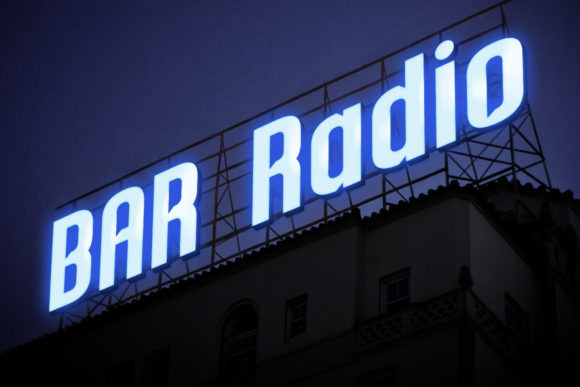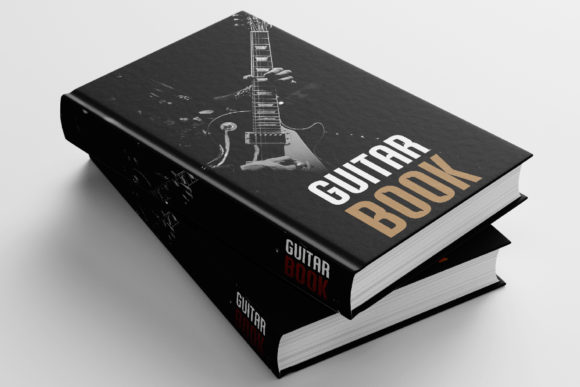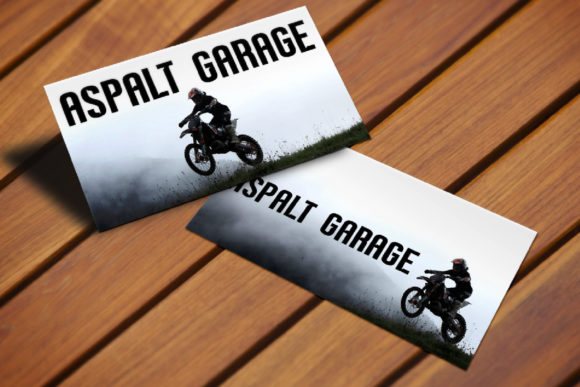
Introduction to Gothree Font
As a designer, you’ve been there – staring at a blank canvas, unsure of where to begin. But then, a spark of inspiration strikes, and your creative project starts to take shape. The right font can be the difference between a good design and a great one. That’s why we’re excited to introduce you to the Gothree Font, a minimalistic sans serif font with a modern vibe that’s sure to elevate your design resource.
With its clean lines and sleek aesthetic, the Gothree Font is the perfect addition to any creative project. Not only is it free to download, but it’s also available in high quality, making it a valuable asset for designers of all levels. Plus, its transparent background makes it easy to layer and customize to fit your unique vision.
Key Features of Gothree Font
- High-quality design resource for creative projects, featuring a unique blend of modern and vintage elements.
- Transparent background, allowing for seamless integration with any design element or background.
- Comes in a range of sizes, from 12pt to 72pt, making it suitable for a variety of design applications.
- Resolution-independent, ensuring that the font remains crisp and clear at any resolution.
- Perfect for designers, artists, and creatives looking for a unique and high-quality design resource for their next project.
Honest Review: Gothree Font
As a designer, I’m always on the lookout for high-quality design resources to elevate my creative projects. Recently, I had the opportunity to try out the Gothree Font, and I’m excited to share my honest review with you.
What works well: ✨ The Gothree Font has a beautiful, modern design that’s perfect for a variety of creative projects, from brochures to business cards. The font is highly customizable, with a range of styles and sizes to choose from. I also appreciated the transparent background, which made it easy to overlay on top of images.
Overall impression: I was impressed with the Gothree Font, and I think it’s a great addition to any designer’s toolkit. While it has some limitations, the font’s high quality and modern design make it a great choice for many creative projects.
- Customizable styles and sizes
The Gothree Font is a versatile design resource perfect for any creative project. Its high-quality, transparent background makes it ideal for various applications.
Tips for Getting the Most Out of Gothree Font
To get the most out of the Gothree Font, use it in conjunction with other design elements, such as graphics and images. Experiment with different font sizes and styles to create a visually appealing design.
The Gothree Font is perfect for a variety of projects, including: 1) Branding and logos. 2) Brochures and flyers. 3) Social media graphics and ads. 4) Website design and development.